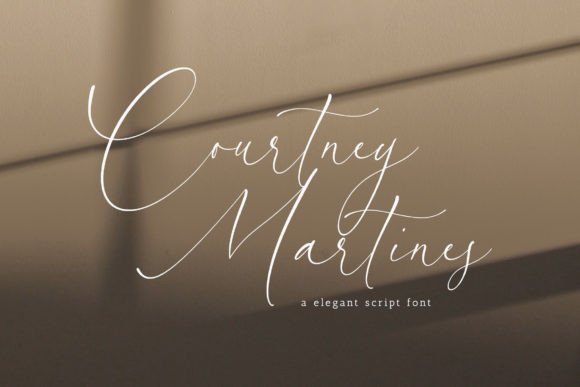
Courtney Martines Font: Elevate Your Design with Elegant Script
Courtney Martines Font is a stunning script font that has been gaining popularity among designers and artists. Its elegant and luxurious feel makes it perfect for a wide range of projects, from product packaging and branding to magazines, social media, and weddings. In this article, we’ll dive into the world of Courtney Martines Font and explore its features, benefits, and uses.
What is Courtney Martines Font?
Courtney Martines Font is a beautiful script font that boasts a sophisticated and refined aesthetic. Its elegant strokes and flowing lines make it perfect for adding a touch of luxury to any design project. The font is designed to mimic the look of handwriting, giving it a personal and unique feel that sets it apart from more traditional fonts.
Benefits of Using Courtney Martines Font
There are many benefits to using Courtney Martines Font in your design projects. Some of the most notable advantages include:
- Elegance and Sophistication: Courtney Martines Font adds a touch of elegance and sophistication to any design project. Its luxurious feel makes it perfect for high-end branding, product packaging, and marketing materials.
- Versatility: This font is incredibly versatile and can be used in a wide range of projects, from digital media to print materials.
- Readability: Despite its elegant feel, Courtney Martines Font is highly readable, making it perfect for body text and longer blocks of content.
- Unique and Personal: The font’s handwriting-like quality gives it a unique and personal feel that sets it apart from more traditional fonts.
Uses for Courtney Martines Font
Courtney Martines Font is a versatile font that can be used in a wide range of projects. Some of the most popular uses include:
- Product Packaging: Add a touch of luxury to your product packaging with Courtney Martines Font. Its elegant feel makes it perfect for high-end brands and premium products.
- Branding and Identity: Use Courtney Martines Font to create a sophisticated and refined brand identity that sets your business apart from the competition.
- Magazines and Editorial Content: Courtney Martines Font is perfect for magazine and editorial content, adding a touch of elegance and sophistication to articles and features.
- Social Media: Use Courtney Martines Font to create eye-catching social media graphics and posts that stand out from the crowd.
- Weddings and Events: Courtney Martines Font is a popular choice for wedding and event planners, adding a touch of luxury and sophistication to invitations, programs, and other materials.
Tips and Tricks for Using Courtney Martines Font
Here are a few tips and tricks for getting the most out of Courtney Martines Font:
- Use it Sparingly: Courtney Martines Font is a statement font, so use it sparingly to add emphasis and create visual interest.
- Pair it with a Simple Font: Pair Courtney Martines Font with a simple font to create contrast and add visual interest.
- Experiment with Colors: Courtney Martines Font looks great in a range of colors, so experiment with different hues and shades to find the perfect look for your project.
Courtney Martines Font is a stunning script font that adds a touch of elegance and sophistication to any design project. Its versatility, readability, and unique feel make it perfect for a wide range of projects, from product packaging and branding to magazines, social media, and weddings. Whether you’re a designer, artist, or DIY enthusiast, Courtney Martines Font is a great choice for adding a luxurious, handwritten touch to your work.